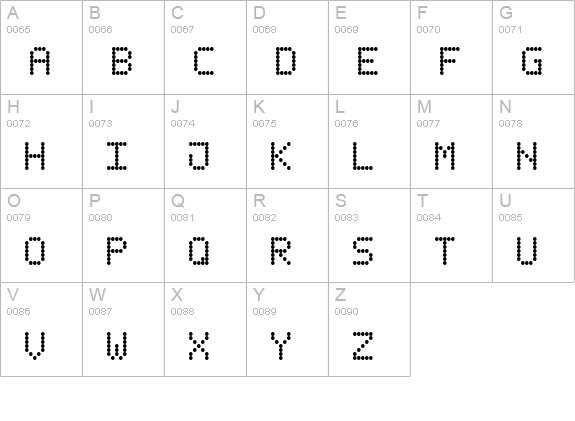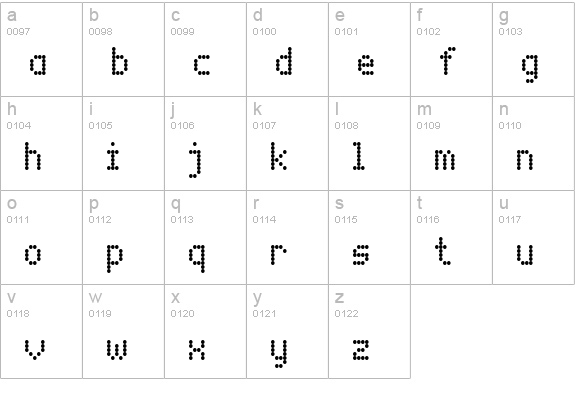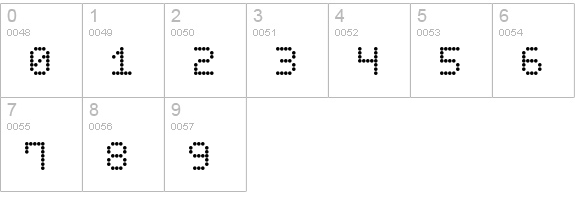
The LED Counter 7 font is a stunning typeface that will take your designs to the next level. With its sleek and modern design, this font is perfect for creating eye-catching displays, signage, and digital projects. The LED Counter 7 font features bold, blocky characters that resemble the look of LED displays. Each character is meticulously crafted to have a distinct futuristic appearance, making it ideal for projects that require a high-tech and cutting-edge aesthetic. What sets the LED Counter 7 font apart is that it is freely available to download at FontsMarket.com. This means that you can add this incredible font to your collection without any cost. Whether you're a professional designer or a hobbyist, having access to such a high-quality font for free is a game-changer. The LED Counter 7 font is versatile and can be used in a variety of design projects. From creating attention-grabbing headlines to designing sleek logos, this font will make your work stand out from the crowd. So why wait? Download the LED Counter 7 font today from FontsMarket.com and start elevating your designs with its modern and futuristic charm.